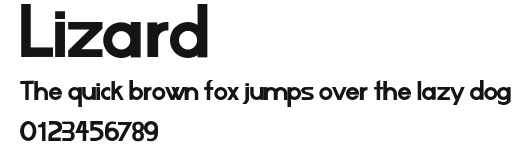
Lizard Preview
• Font Name: Lizard
• Full Font Name: Lizard
About Lizard.otf
Lizard.otf is a modern, elegant sans-serif font designed for ultimate readability and visual harmony. Perfect for branding, headlines, web design, and print materials.